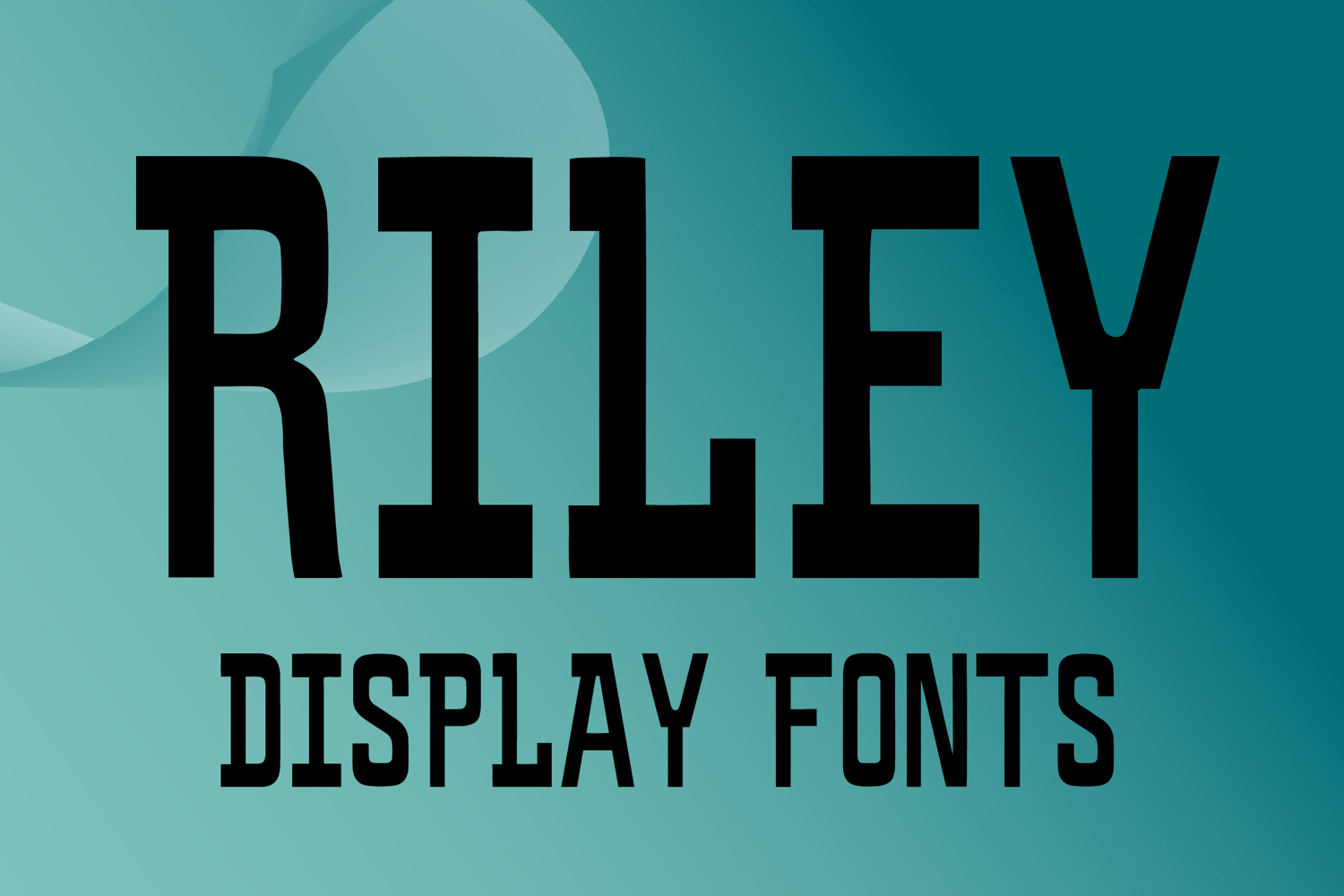
RILEY
RILEY is a bold vintage-inspired display font with tall condensed letterforms, strong slab-style structure, and a confident retro character. Its uppercase shapes feature thick strokes, sharp edges, and sturdy proportions that create a striking, classic, and memorable look. Designed with uppercase letters A–Z and numbers 0–9, RILEY is perfect for branding, posters, packaging, logos, headlines, and social media graphics that need a bold and timeless statement.